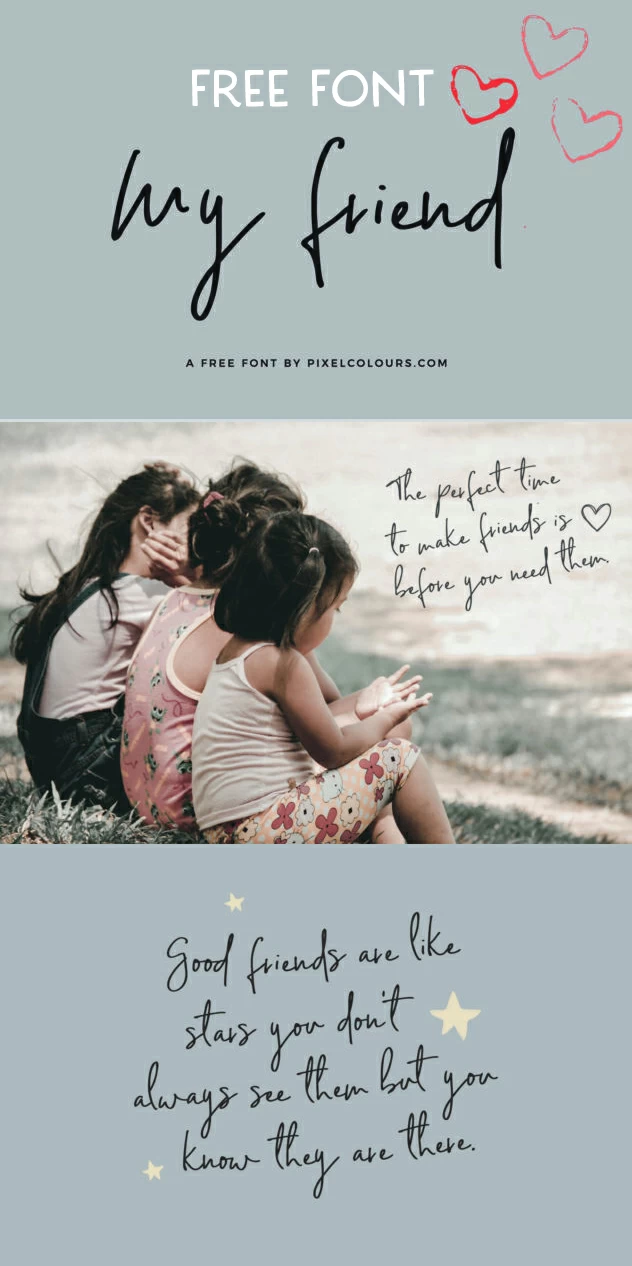
Free handwritten Font
The Free My Friend Font has a cute handwritten style to it that makes it perfect for quotes like the example images. Please note- if you have any trouble downloading this font please contact the original designer here.